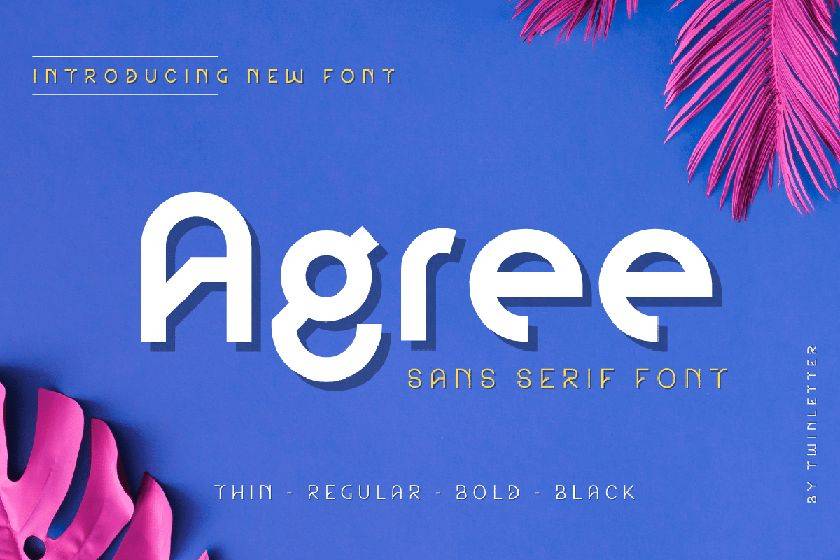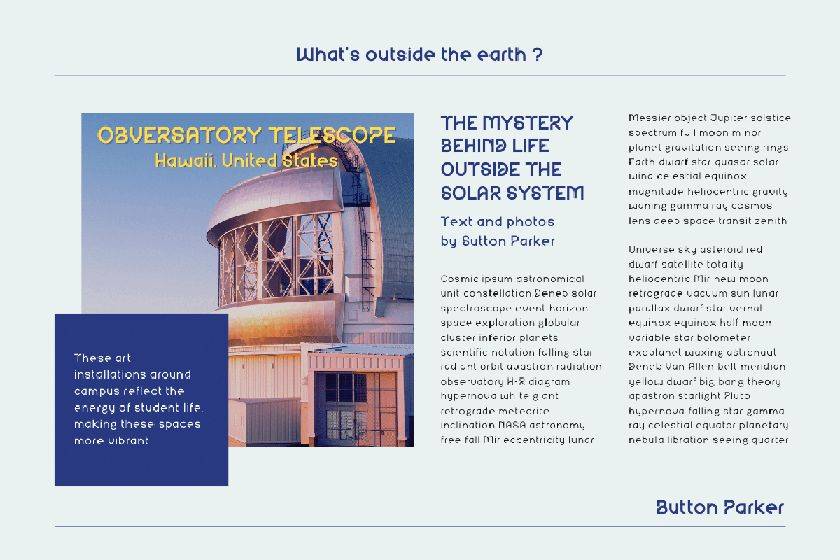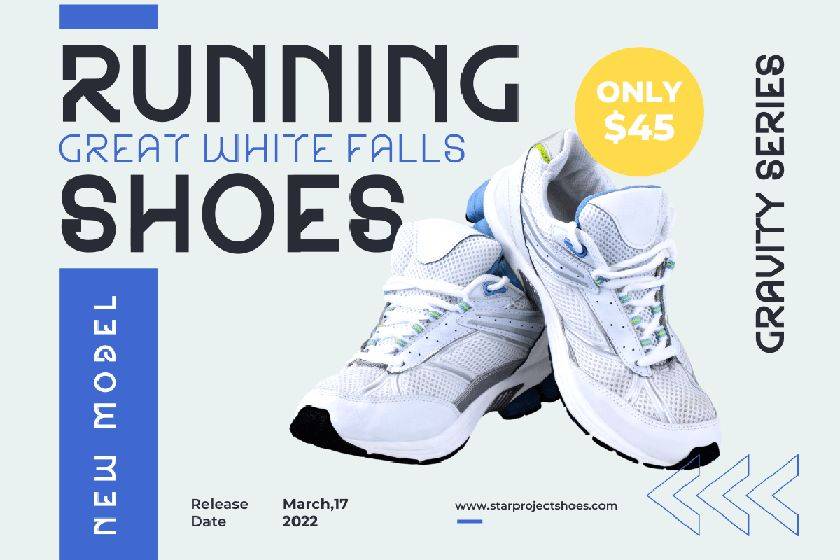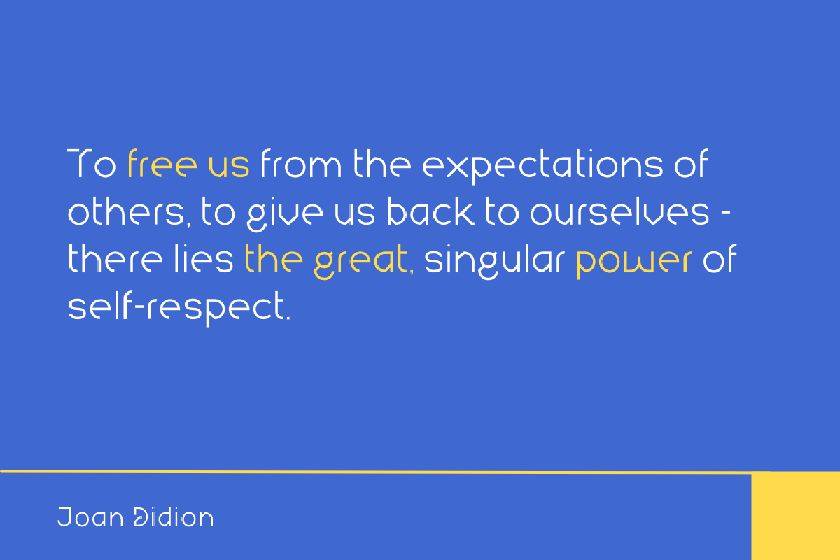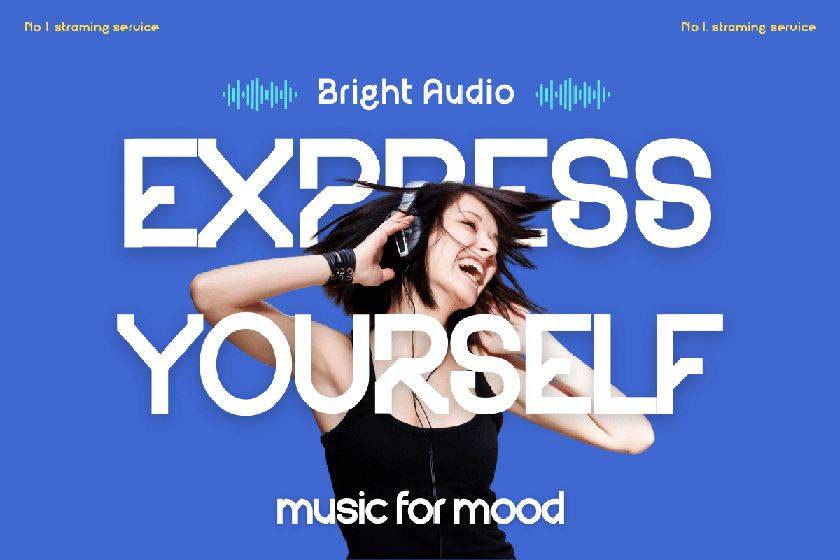
Agree is a modern sans serif font with a unique geometric style marked by its clean lines and distinctive cut-out shapes within characters. It has a medium weight and a balanced x-height, giving it a contemporary and slightly futuristic feel, making it ideal for bold headlines, branding, and creative projects that seek a sleek, innovative look. This font works well in both uppercase and lowercase, offering versatility for digital and print applications where clear, stylish communication is key.
Agree Font
About Agree Font
| Font family | Agree Font |
| Release date | 2022-01-23 |
| Designer | afri |